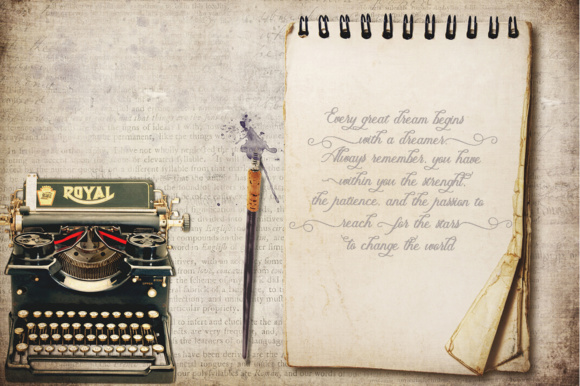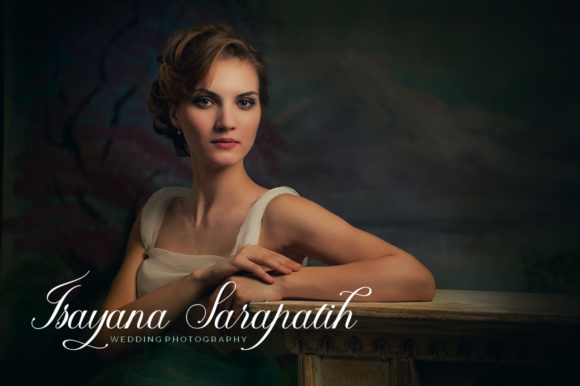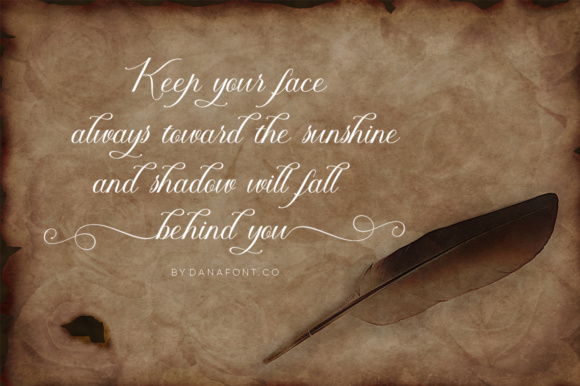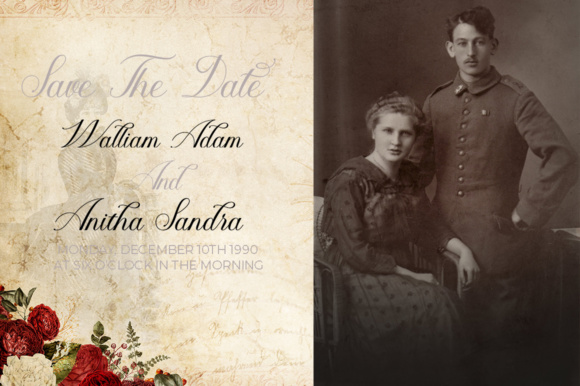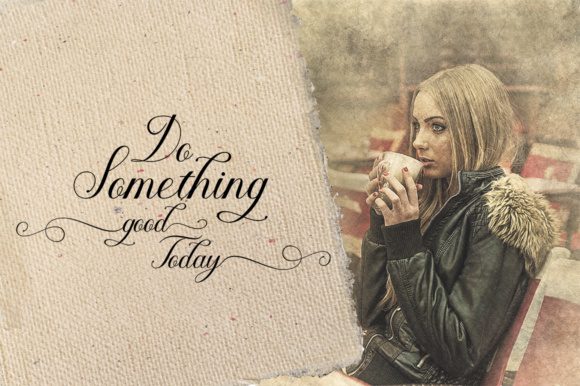
As I sat at my desk, staring at a blank piece of paper, I was determined to create the perfect invitation for my friend’s wedding. The words ‘love’ and ‘happiness’ danced in my head, but the right font seemed to be missing. That’s when I stumbled upon Angie’s Dean Font, a beautiful calligraphy script that brought my design to life.
Angie’s Dean Font is a stunning calligraphy script designed to add elegance and style to any project. With its beautiful alternative characters, this font is perfect for formal designs such as invitations, labels, and menus. Its classic style makes it versatile enough to be applied in various creative fields, from fashion and makeup to letterpress and romantic novels.
For designers, Angie’s Dean Font is a valuable addition to their toolkit. Its unique style and beautiful characters make it stand out from other fonts, allowing designers to create unique and memorable designs that leave a lasting impression.
Angie’s Dean Font Key Features
- Font Family: Angie’s Dean Font is a unique, handwritten font designed to add a personal touch to various designs.
- Resolution: Designed for high-resolution displays, Angie’s Dean Font is ideal for use in digital designs, such as web pages, social media, and mobile apps.
- Unique Characteristics: The font features a distinctive, cursive script with varying line widths and subtle flourishes, adding a touch of elegance to designs.
Designer Review: Angie’s Dean Font
As a designer, I was intrigued by Angie’s Dean Font and decided to put it through its paces. Here’s my honest review.
- Unique character set: Angie’s Dean Font has a distinct set of characters that add a touch of whimsy to any design.
- High contrast: The font’s high contrast makes it perfect for use in designs where readability is key.
- Easy to read: Despite its playful feel, Angie’s Dean Font is surprisingly easy to read, even in smaller sizes.
- Limited versatility: While Angie’s Dean Font is great for certain types of designs, it may not be the best choice for more formal or professional projects.
- Lack of consistency: Some users have reported inconsistent rendering of the font across different devices and platforms.
- Not suitable for body text: Due to its unique character set and high contrast, Angie’s Dean Font is not ideal for use as body text in longer pieces of content.
Overall, I think Angie’s Dean Font is a fun and creative choice for designers looking to add a touch of personality to their projects. While it may not be the best choice for every project, it’s definitely worth considering for the right design.
Tips for Getting the Most Out of Angie’s Dean Font
Use Angie’s Dean Font for titles, headings, and emphasis in your designs.
Pair it with bold, sans-serif fonts for a clean and modern look.
Experiment with different font sizes and colors to create visual hierarchy and emphasis.
Angie’s Dean Font is ideal for:
Creativity and lifestyle blogs
Food and recipe websites
Wellness and self-improvement platforms
Alternatives to Angie’s Dean Font
Abril Fatface is a modern, elegant script font ideal for creating beautiful headlines and titles. It is perfect for use in magazines, advertising, and other design projects where a touch of sophistication is needed.
Comparison to Angie’s Dean Font: Abril Fatface is more refined and elegant than Angie’s Dean Font, with a more flowing and cursive feel. It is better suited for formal and high-end designs.
Carolyna Pro is a stylish, modern script font with a feminine touch. It is ideal for creating beautiful typography for fashion, beauty, and lifestyle brands.
Comparison to Angie’s Dean Font: Carolyna Pro is more delicate and refined than Angie’s Dean Font, with a softer and more elegant feel. It is better suited for designs that require a touch of femininity and sophistication.